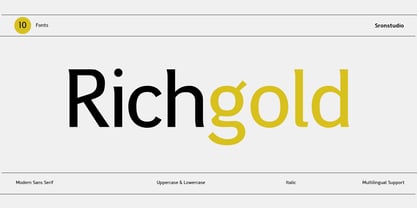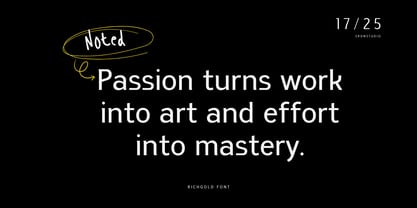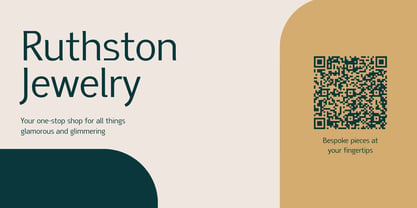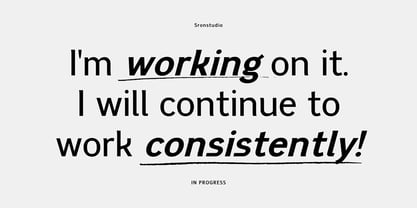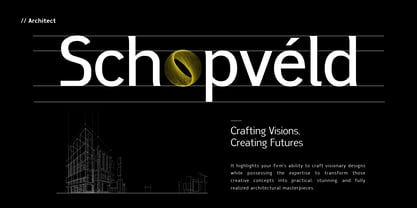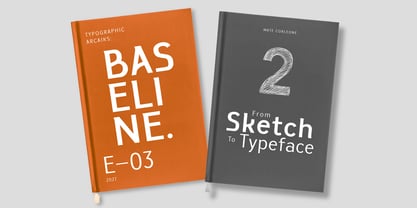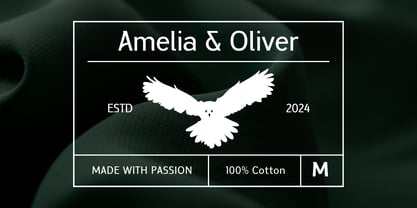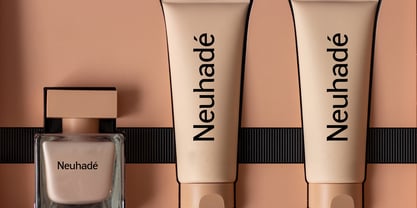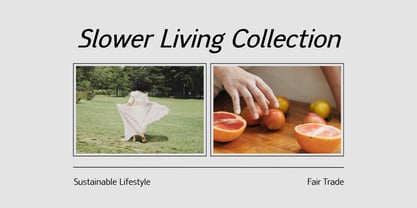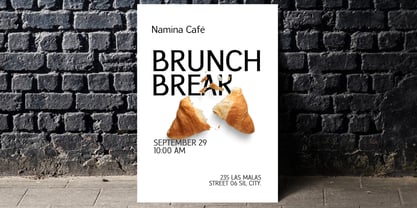
Richgold
by Sronstudio
The Richgold Font Family was designed by Muhamad Yusron Billah and published by Sronstudio. Richgold contains 10 styles and family package options. More about this family
Richgold is a modern sans-serif font designed for elegance and versatility. With its clean lines, balanced proportions, and contemporary feel, this font is perfect for branding, headlines, logos, web design, and editorial use. Its sleek and minimalist design ensures a professional and sophisticated look, making it an excellent choice for projects that demand clarity and style.
- Style: Light, Regular, Medium, Bold & Black
- Uppercase & lowercase letters
- Numerals & punctuation
- Multilingual support
Designers: Muhamad Yusron Billah
Foundry: Sronstudio